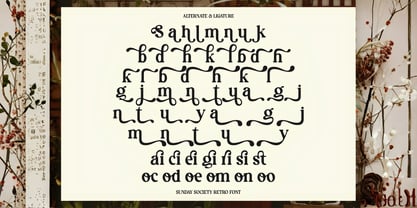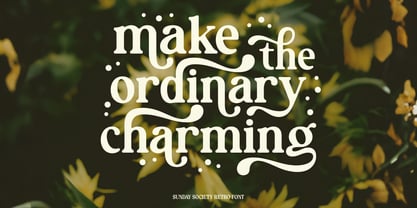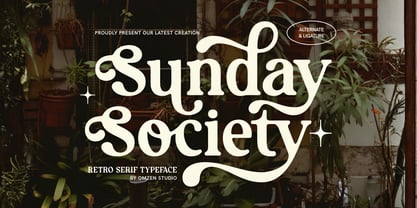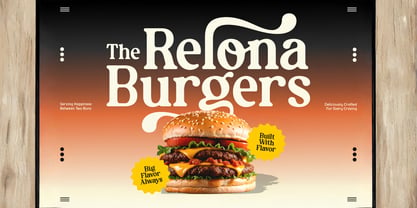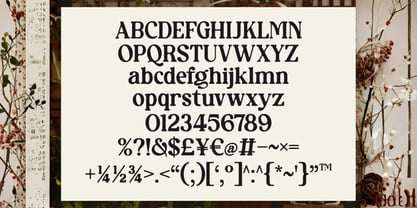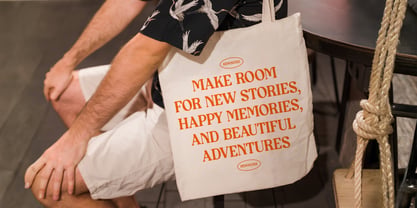
Sunday Society
Introducing Sunday Society, a premium retro serif font designed to bring a touch of luxury and timeless elegance to your creative projects. Characterized by its high-contrast strokes and sophisticated flourishes, this font captures the essence of classic vintage aesthetics while remaining perfectly suited for modern editorial design.
Sunday Society is packed with custom ligatures and elegant swashes that allow you to create unique, eye-catching typography for branding, logos, and high-end print materials.